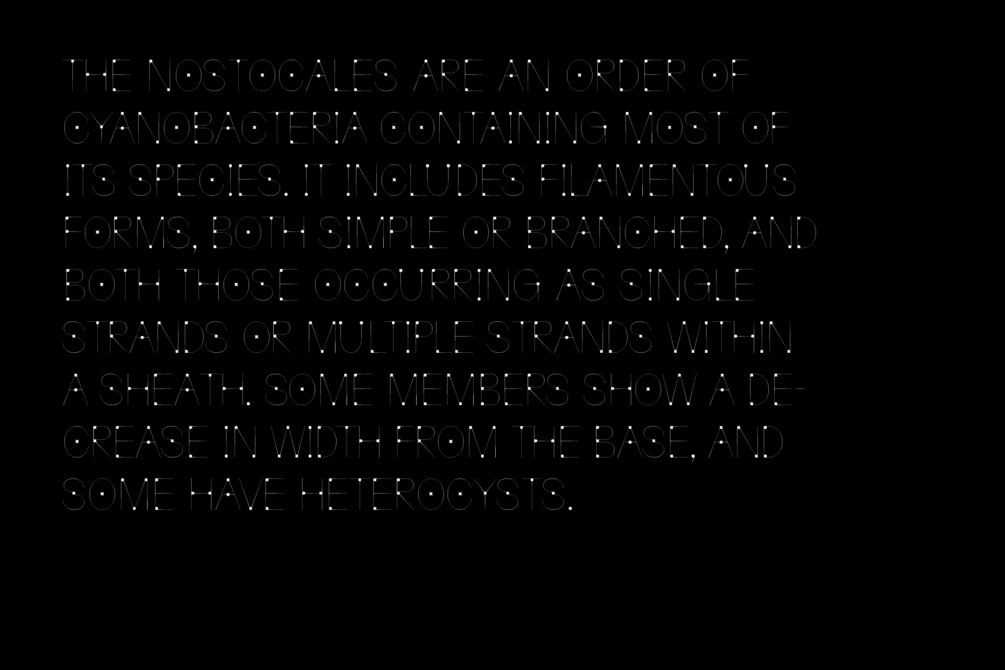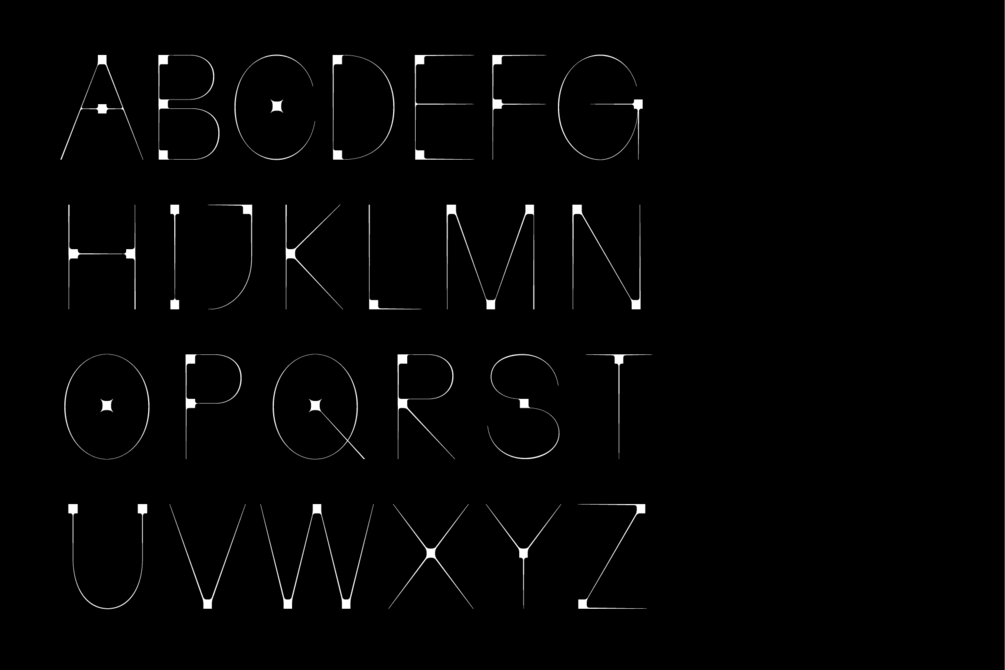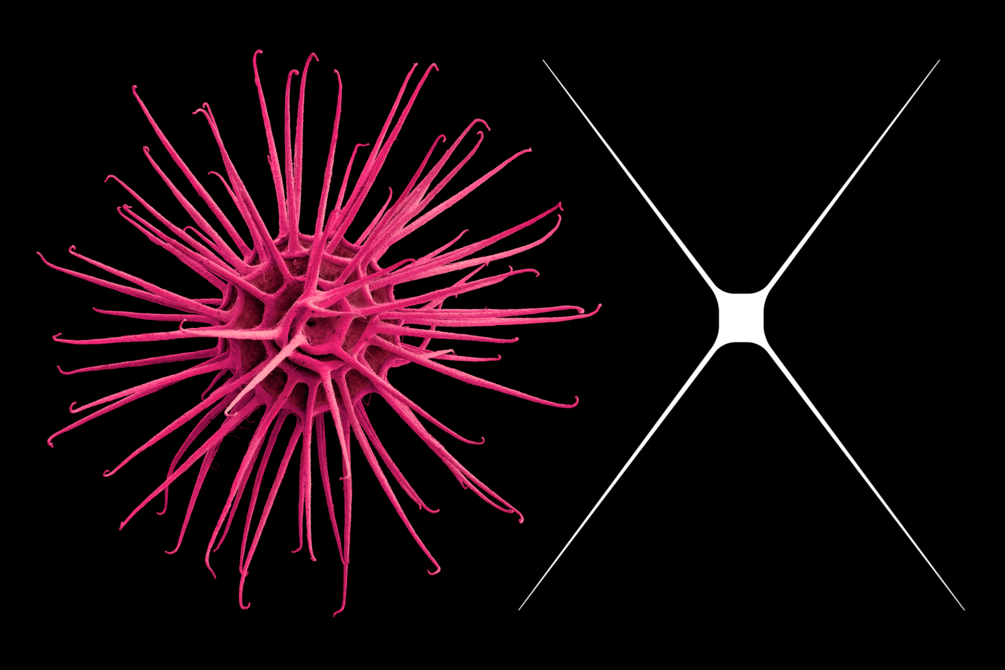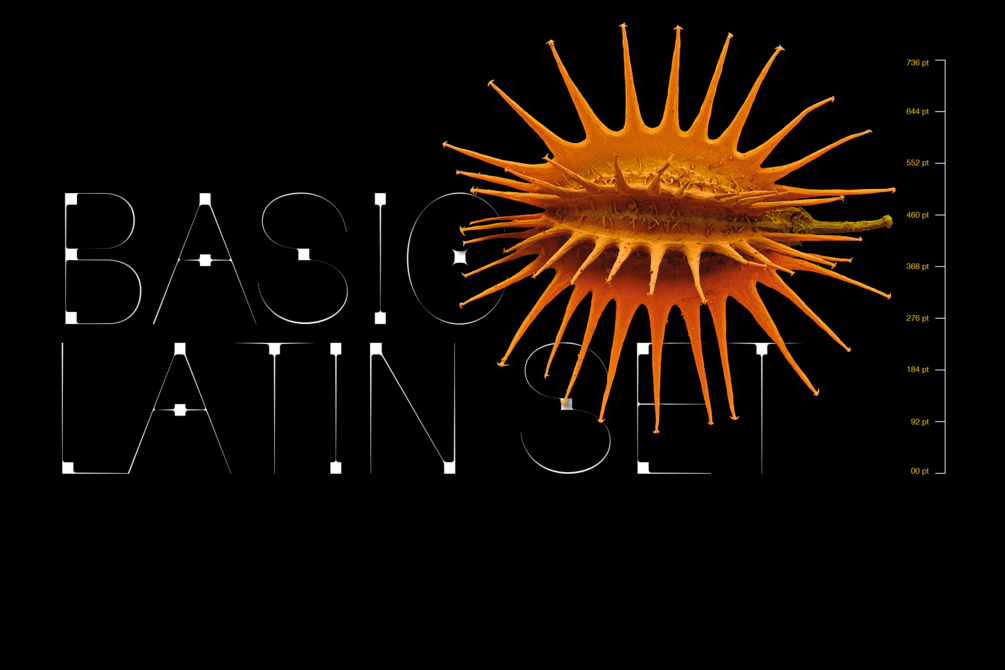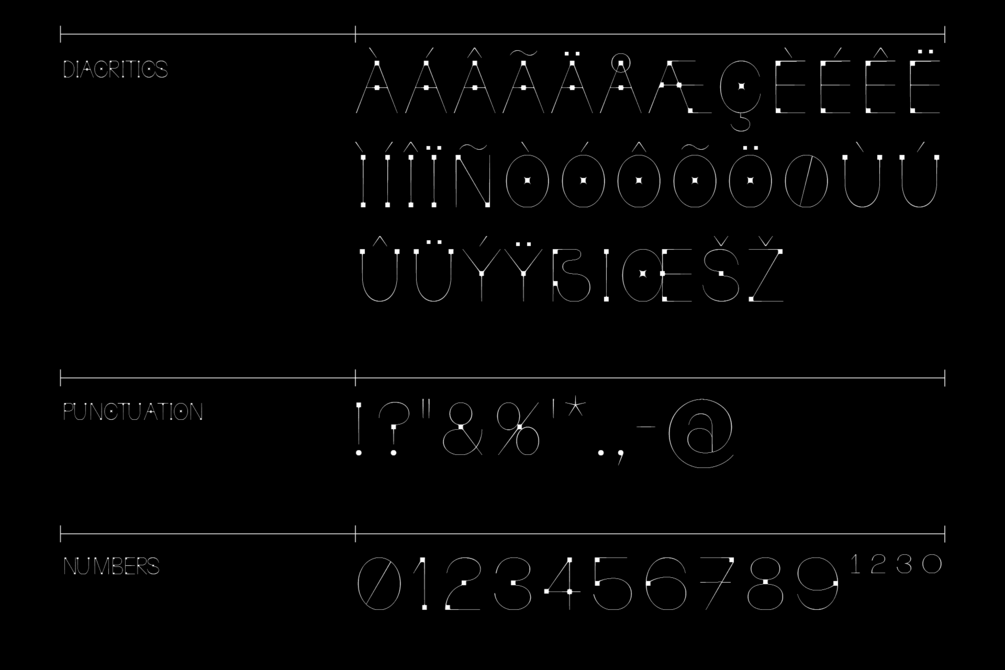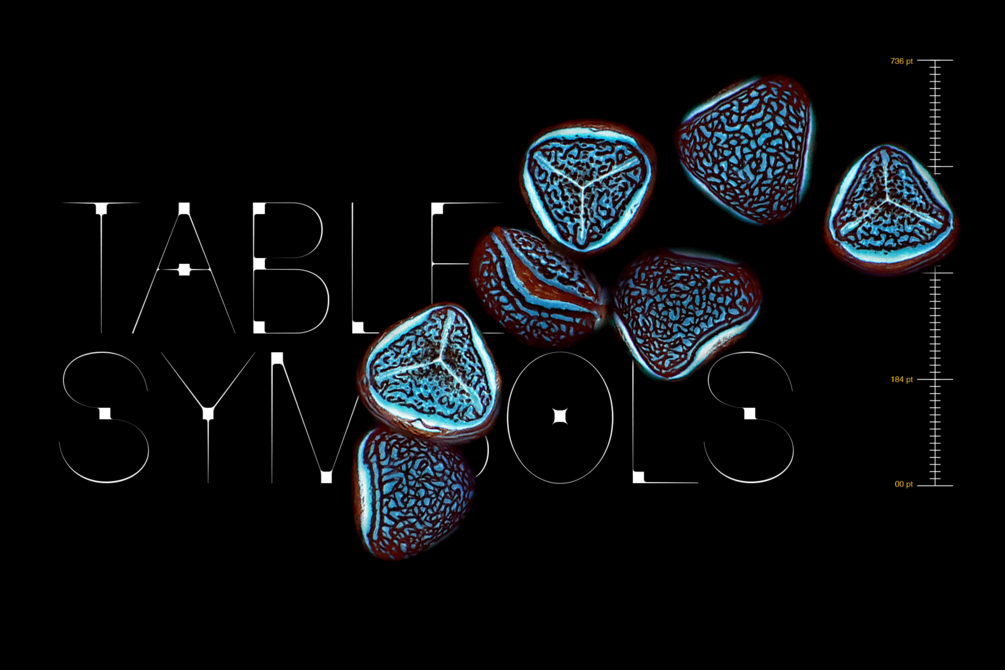
"KRAYS" font
Krays — the idea is to make an organic font, as if a minimal form of life. And it will begin to multiply and develop. If we imagine that a thin stroke is a malecule, then the strokes begin to connect, and the connection nodes are square points. The strokes are intentionally very thin, so that the square joints in the text set come to the foreground, and form a new texture.
Basic and Extended Latin, Cyrillic, Diacritics, Numbers, Punctuation, Currencies, All Uppercase.